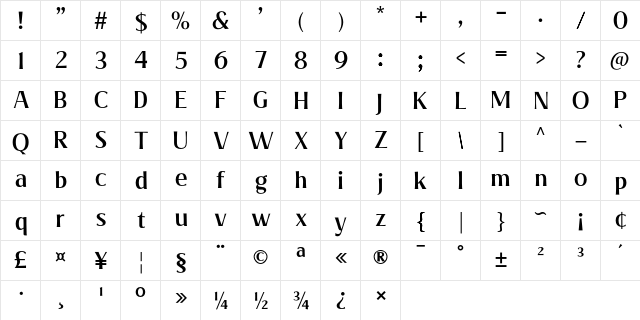
Valeria Medium
| Foundry | Arterfak Project |
| Designer | Ahmad Ramzi Fahruddin |
Design Context for Valeria Typeface
Valeria is a composed and adaptable typeface that performs quietly and consistently across a wide range of design contexts.